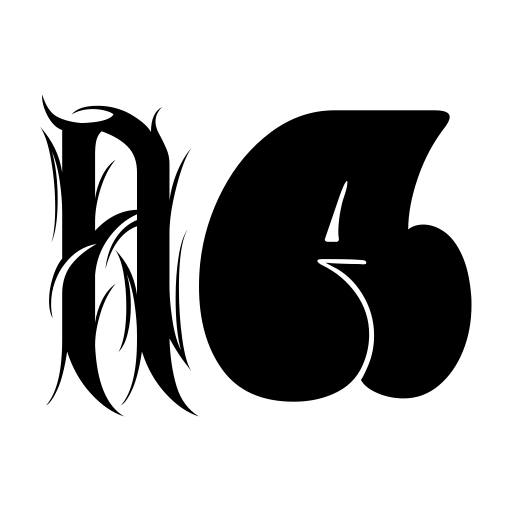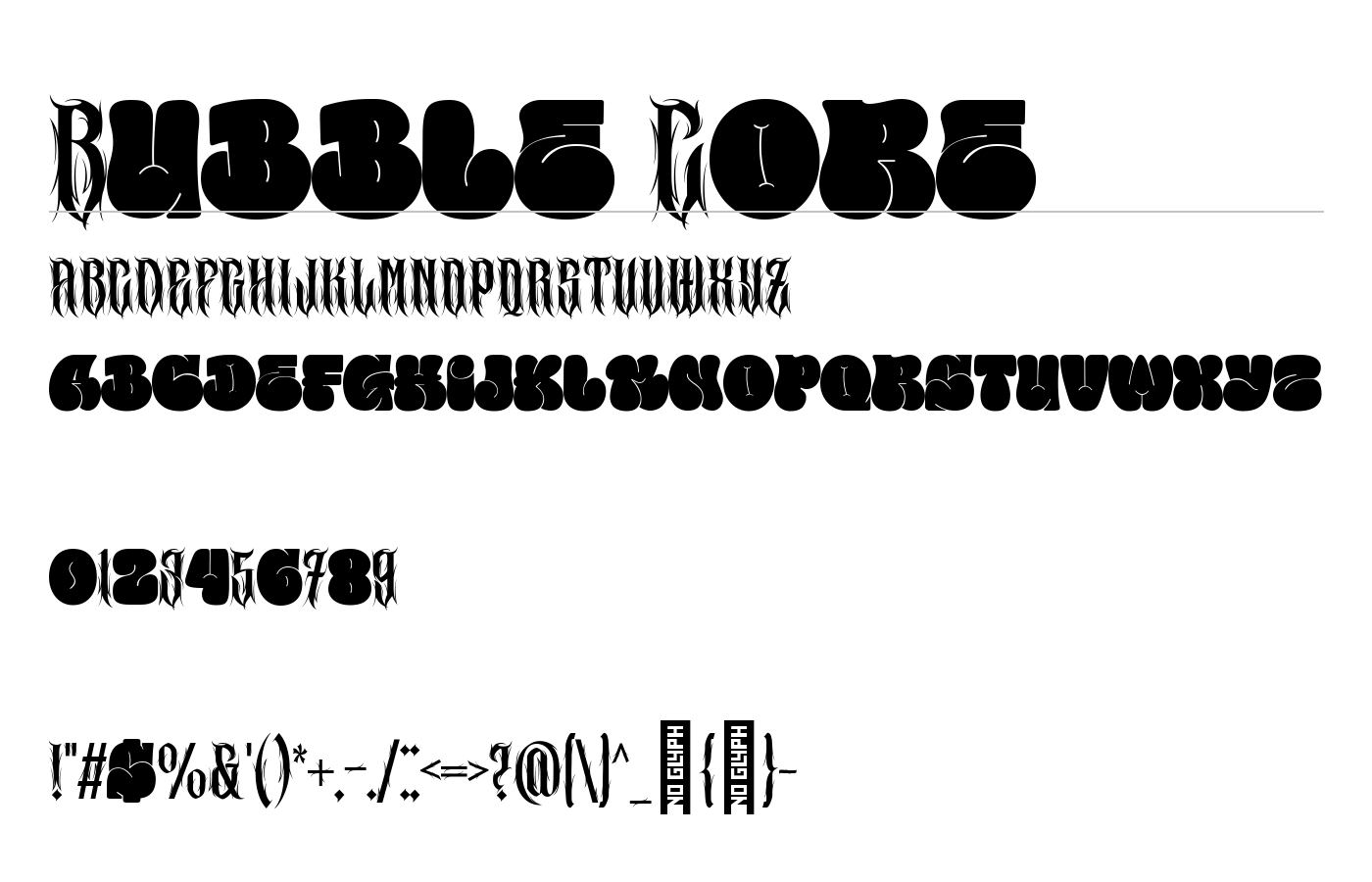
Bubble Core Font is a bold and playful display typeface with thick, rounded letterforms that give it a bubbly, fun character. Its heavy weight and condensed width make it perfect for eye-catching headlines or logos that need a strong, quirky personality. This font works best in creative, informal designs where a lively, energetic vibe is desired.
Bubble Core Font
About Bubble Core Font